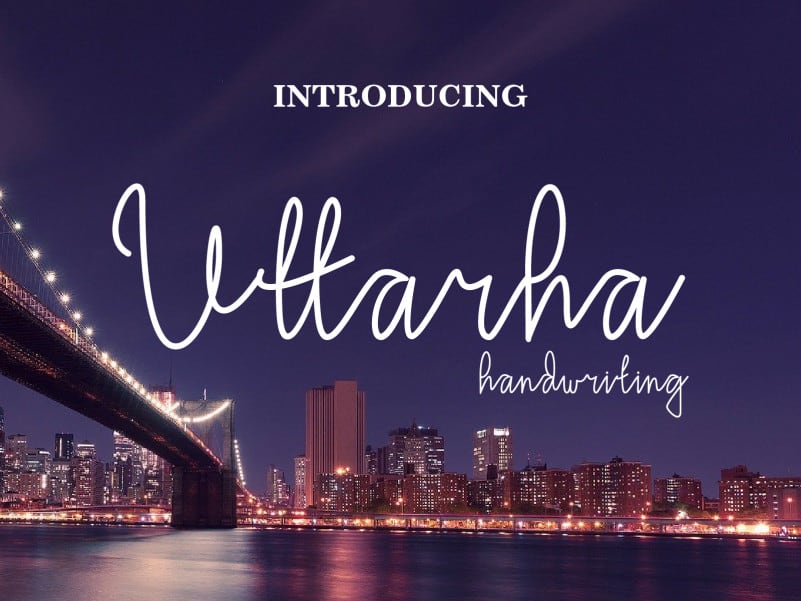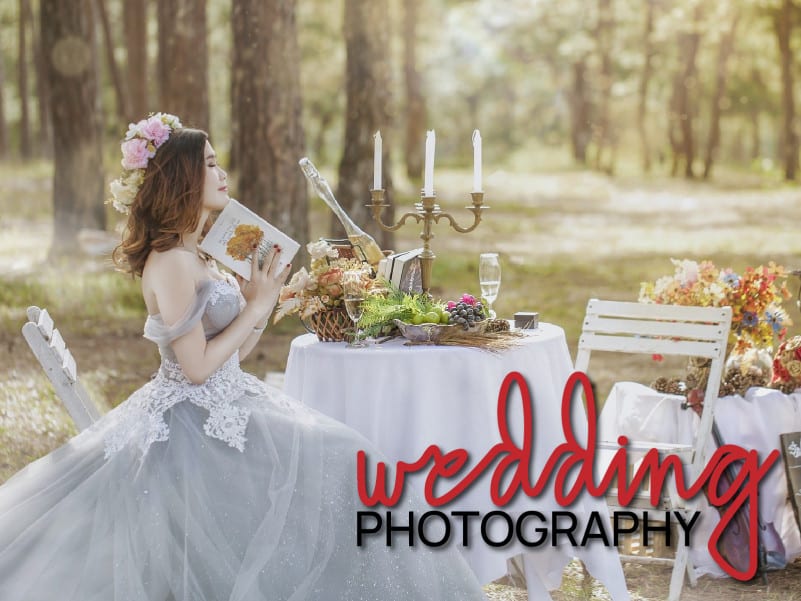
Uttarha Handwriting Font
Introducing Uttarha Handwriting Font, it’s a cute and casual handwritten font with an incredibly friendly feel. It features gorgeous swashes and ligatures that make this script incredibly versatile. Whether you’re looking for fonts for Instagram or calligraphy scripts for DIY projects, Uttarha will turn any creative idea into a true piece of art!
Ready to use for projects, texts, letters, or whatever you want!